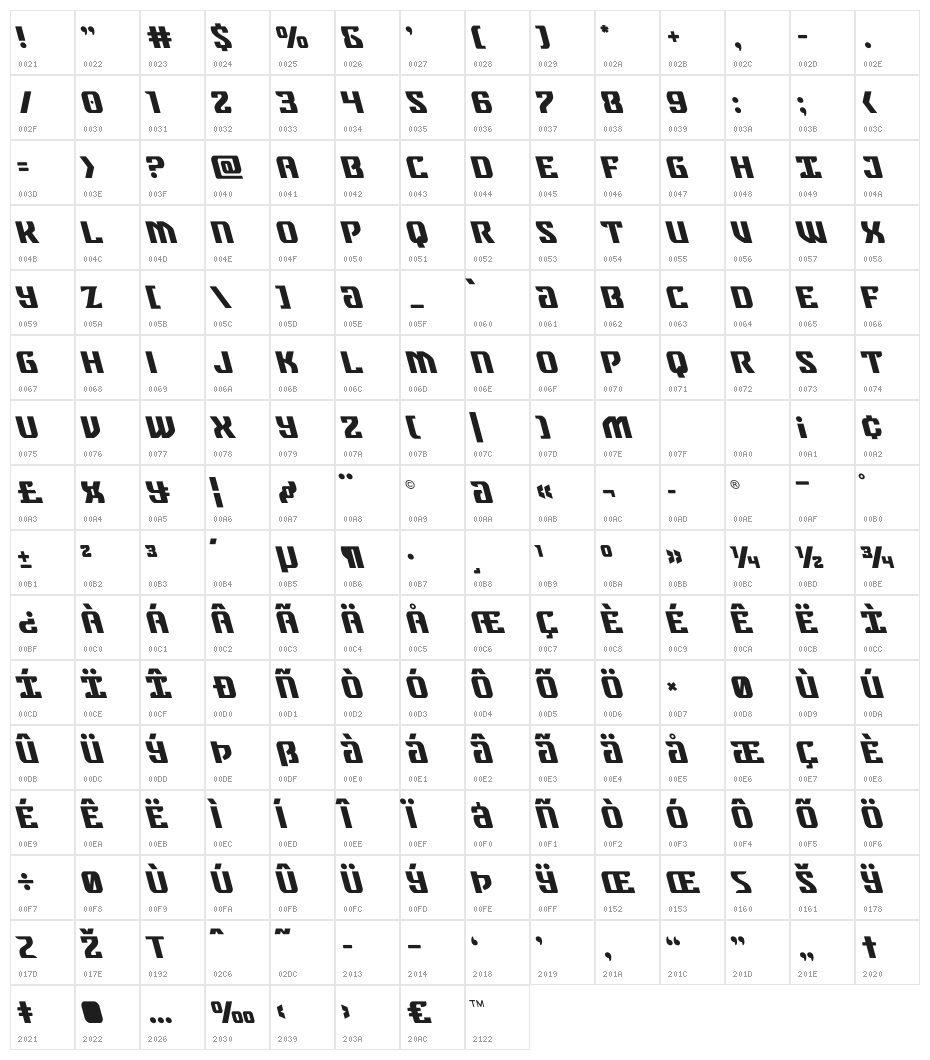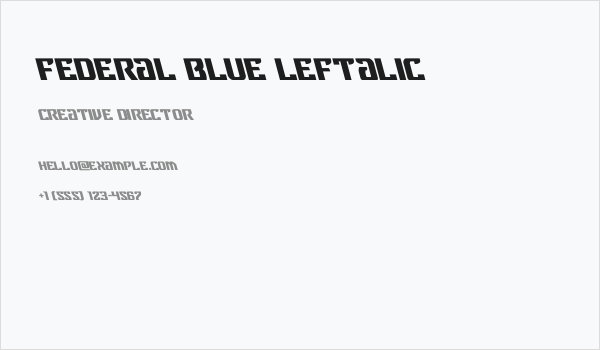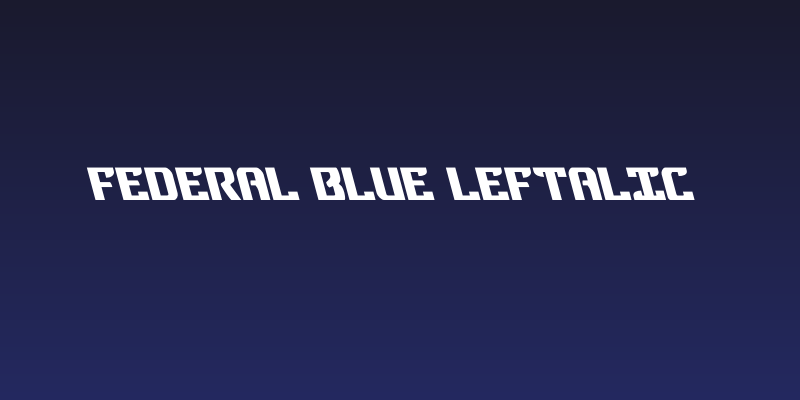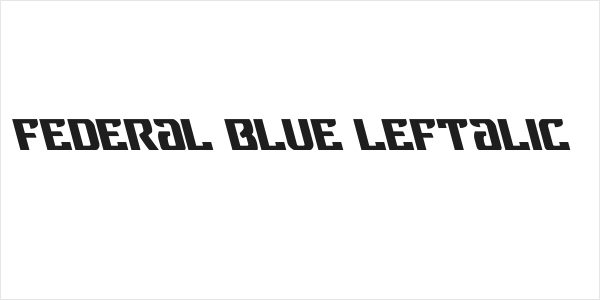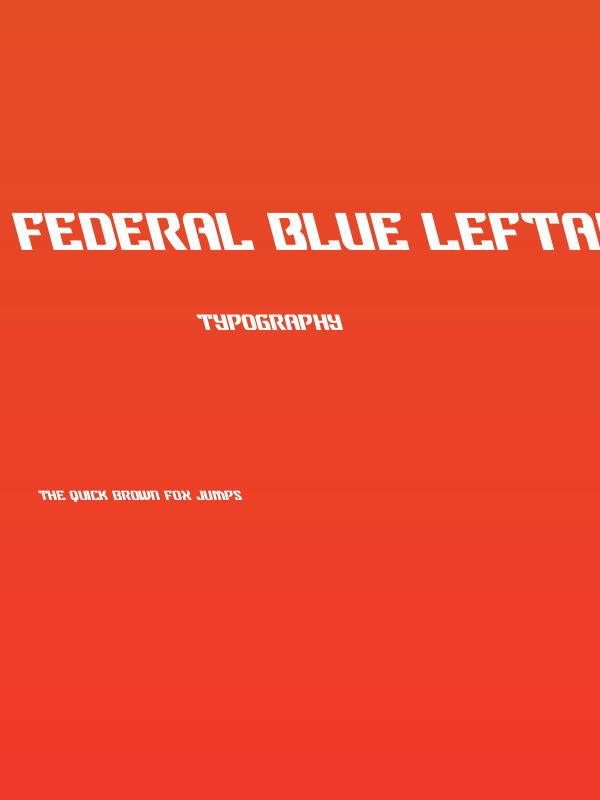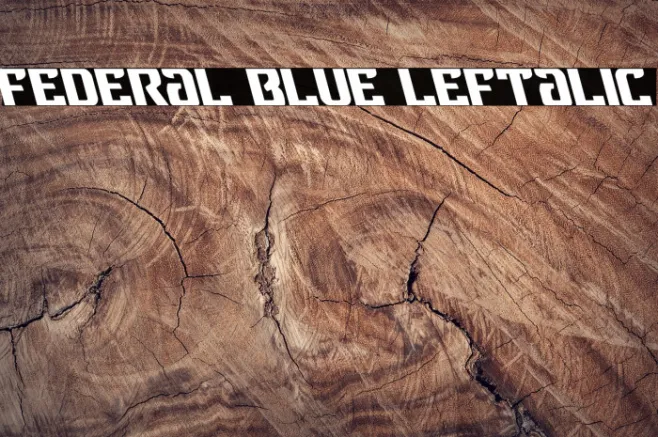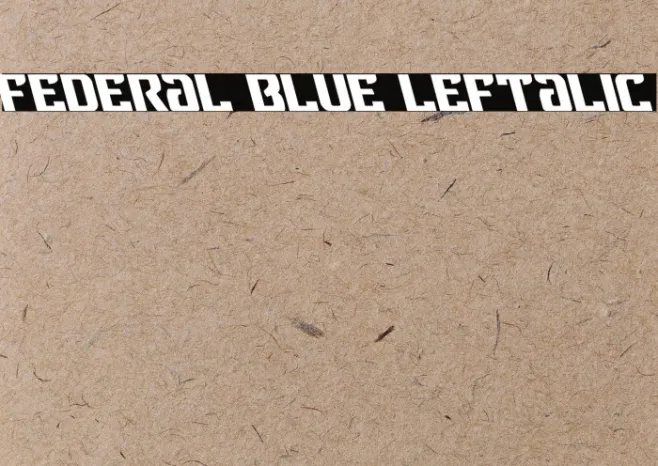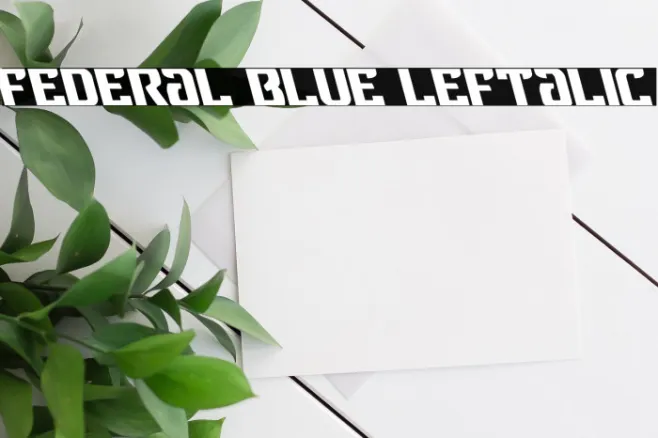
Federal Blue Leftalic Font
Federal Blue Leftalic Description
This font features a bold and dynamic style with a distinct slant to the left, giving it a sense of motion and urgency. The characters are robust and angular, with sharp edges and a strong presence. The uppercase and lowercase letters maintain a consistent weight, providing a cohesive look. The numerals and special characters follow the same bold and slanted design, ensuring uniformity across all glyphs. This font's unique style makes it stand out, suitable for projects that require a strong visual impact.
| Proposed Projects | Ideal for sports branding, action movie posters, dynamic logos, and attention-grabbing headlines. |